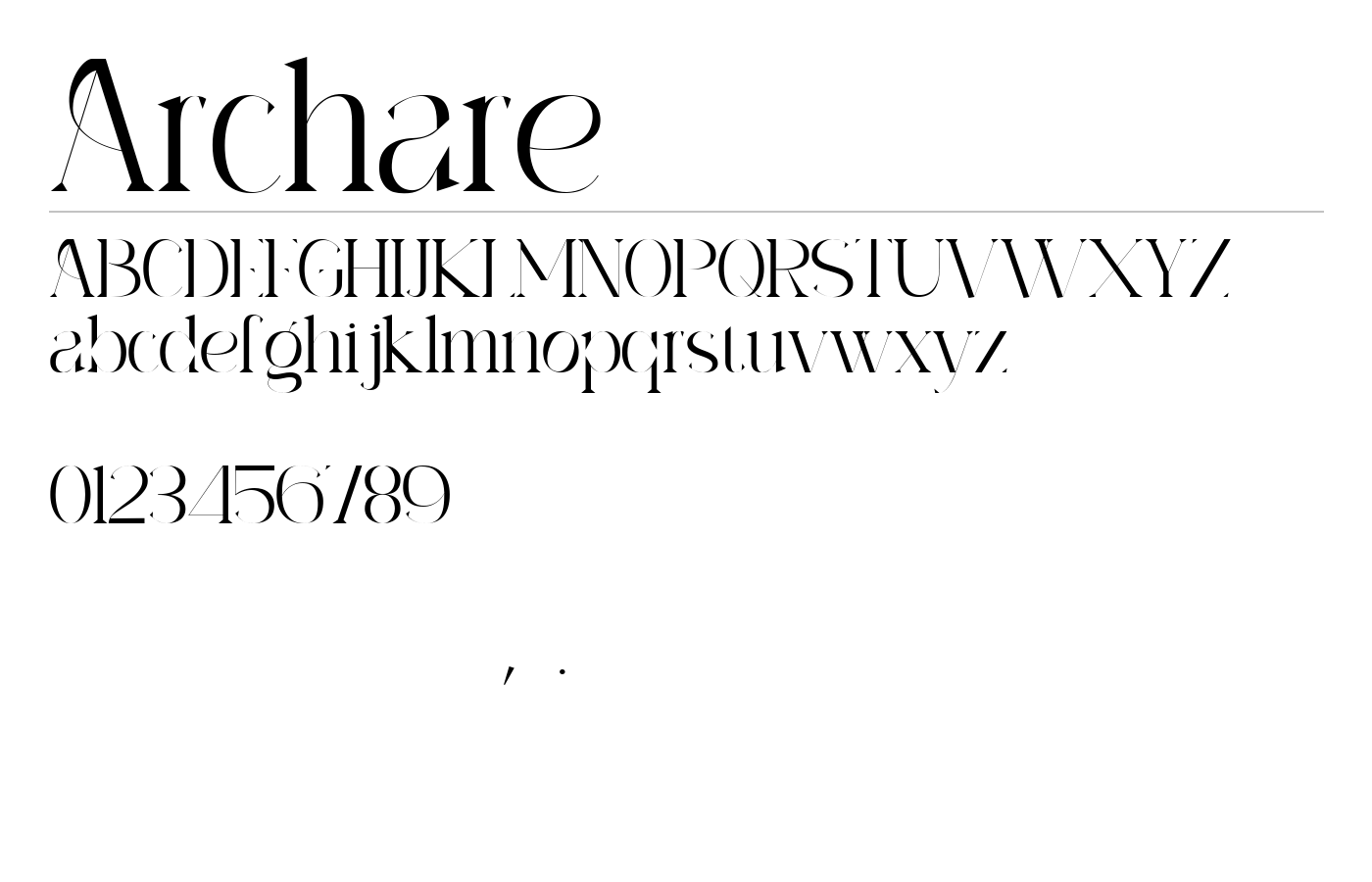
Archare is a high-contrast modern serif font with elegant, sharply angled strokes and delicate thin serifs that create a refined, luxury feel. Its tall x-height, unique letterforms, and stylish details make it perfect for sophisticated branding, fashion editorials, and upscale headlines where a striking, contemporary elegance is desired.
Archare Font
About Archare Font